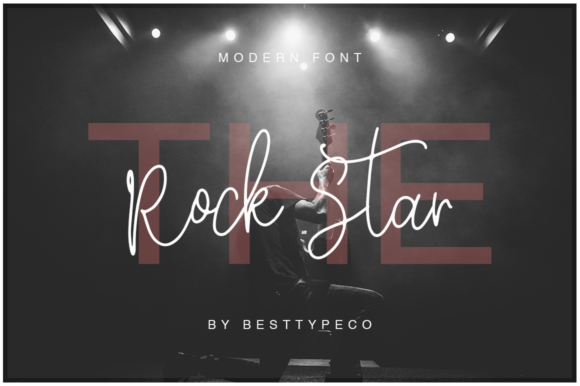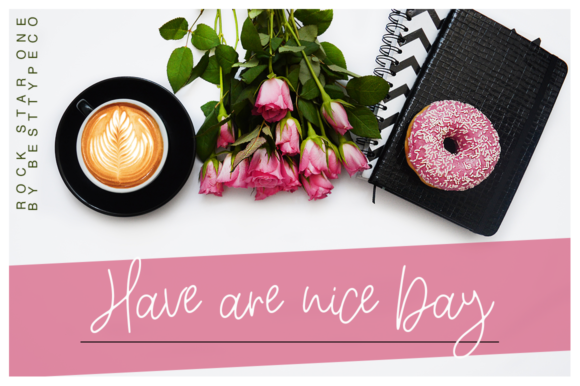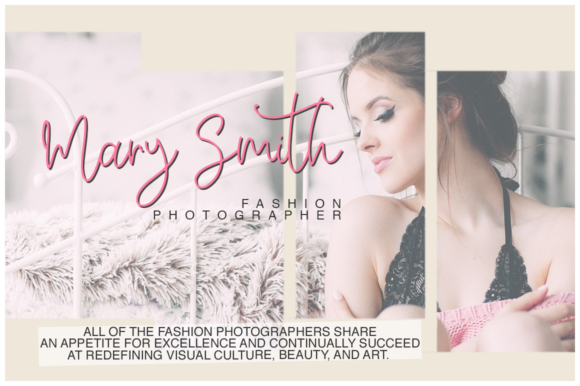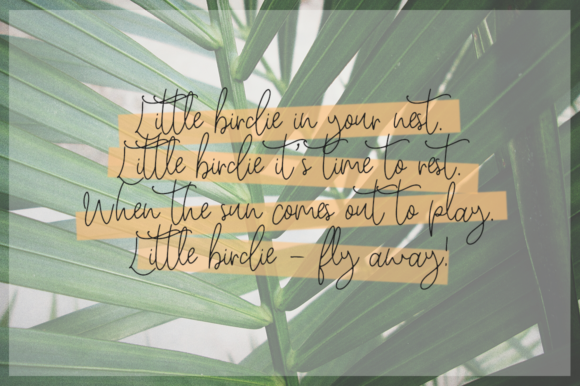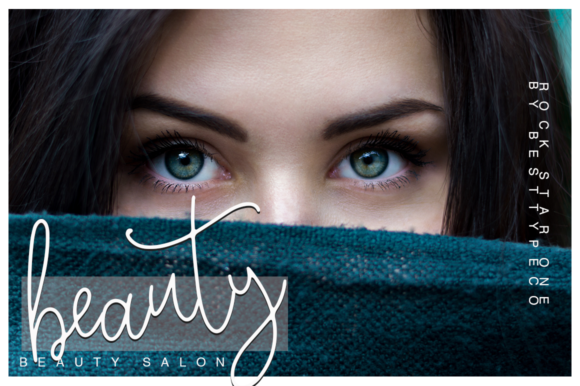
HomeScript FontsRock Star Font Script Fonts Rock Star Font FacebookXPinterestWhatsApp Rock Star Font Poster 2 Rock Star Font Poster 3 Rock Star Font Poster 4 Rock Star Font Poster 5 About Rock Star Font Rock Star is a fun and cool handwritten font with a unique style. Get inspired by its radiating beauty. DOWNLOAD NOW People also explored Malena Font Yellow Submarine Font Honeygrapple Font Phefita Font Midnight Show Arlington Font Curly Witch Font Morning Font Silverstone Font 324 0 TagsRock Star Font Previous articleFriendship FontNext articleBlack Label Font LEAVE A REPLY Cancel reply Comment: Please enter your comment! Name:* Please enter your name here Email:* You have entered an incorrect email address! Please enter your email address here Website: Save my name, email, and website in this browser for the next time I comment. Personal Use Free Old Linoleum Personal Use Free Read more about this font Nuku Nuku Personal Use Free Read more about this font Good Mood Personal Use Free Read more about this font Fake Receipt Personal Use Free Read more about this font BLOG Using Fonts in Digital Marketing: Tips to Strengthen Your Brand Identity In the realm of digital marketing, every visual element plays a crucial role in shaping a brand's identity, and fonts are no exception. The... Top 7 Google Fonts Alternatives for Faster and Privacy-Friendly Web Design (2025) How to Install and Use Fonts on Windows, macOS, and Web Projects Fonts That Capture the Spirit of New York City